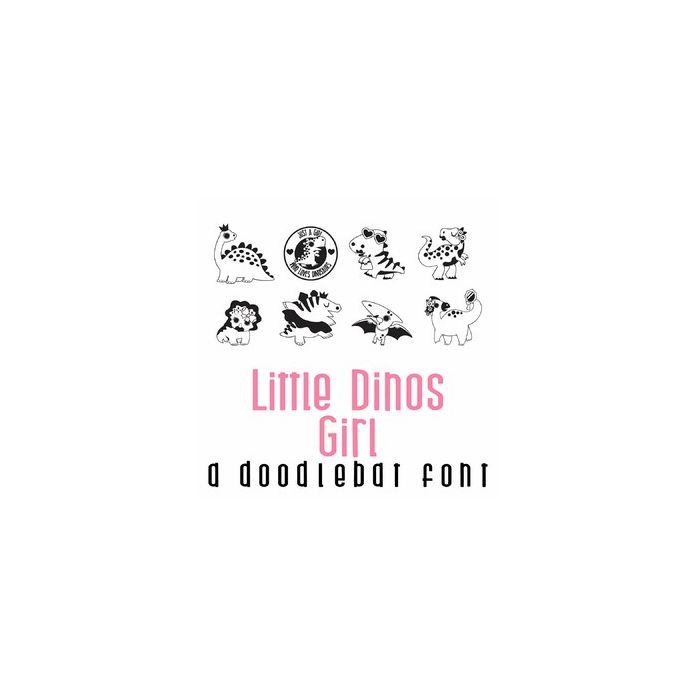
This adorable doodlebat font features 26 perfectly girly dinosaurs. Perfect for cards, crafts, gifts, decor, parties, planner stickers, scrapbook pages, classrooms and more!